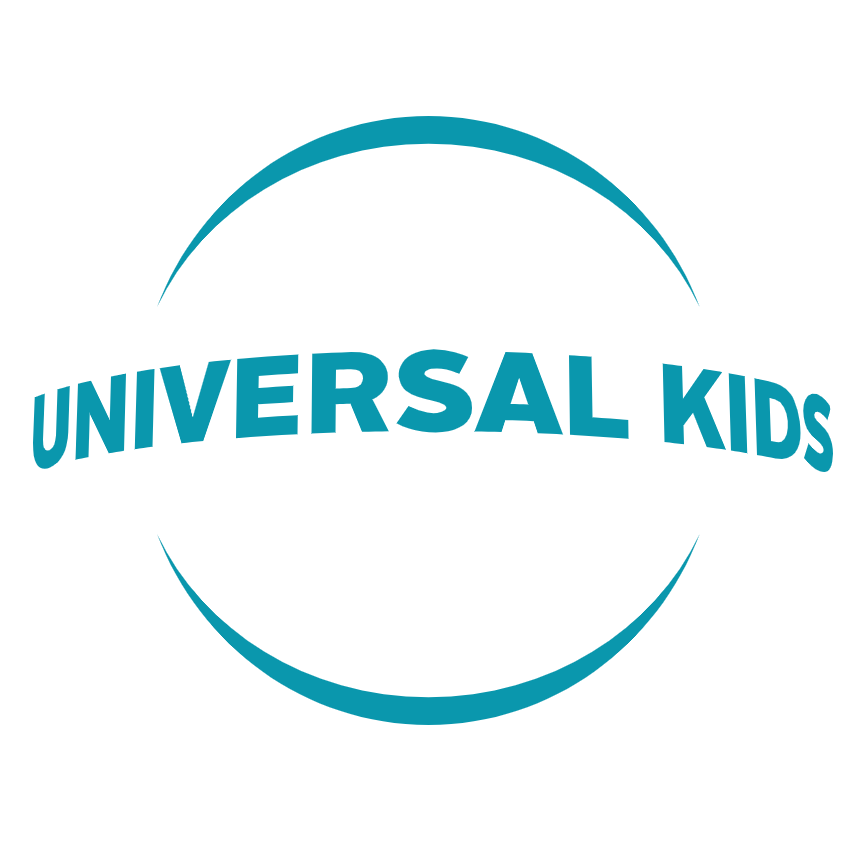
Universal Kids Font
Fonts in UseUniversal Kids is a children's television channel owned by NBCUniversal that features programming aimed at children aged 2 to 12 years old, including animated series, live-action shows, and educational content.
The TV channel's logo font resembles Alright Sans Black, a modern sans-serif font created by Jackson Cavanaugh and made available through Okay Type in 2009. However, the font was later updated to Alright v2 in 2019. You can view and download the font here.